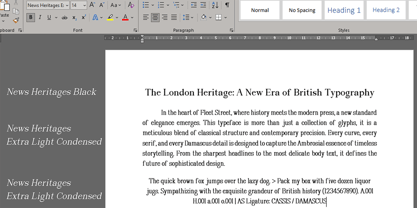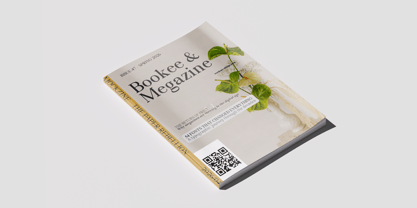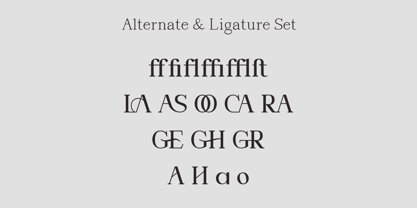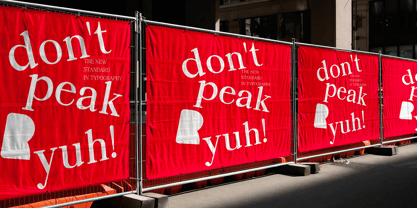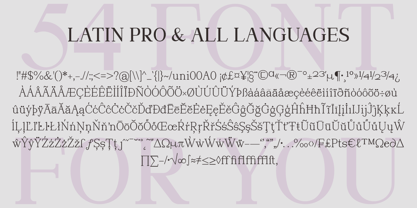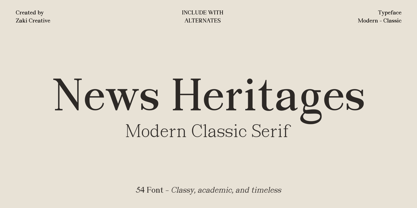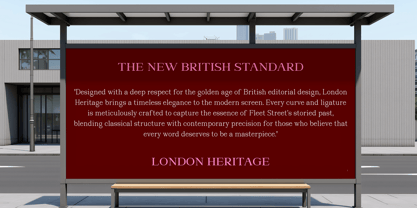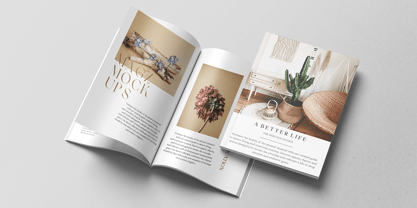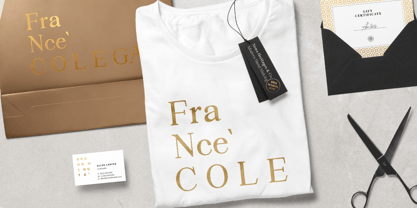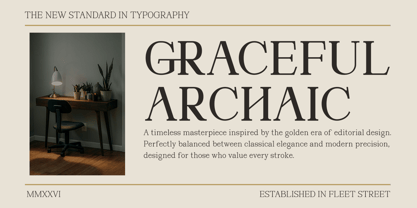
News Heritages
The News Heritages Font Family was designed by Teuku Muhammad Zaki and published by Zaki Creative. News Heritages contains 55 styles and family package options. More about this family
News Heritages — The New Standard of Editorial Elegance Capture the timeless soul of Fleet Street with News Heritages. In a world full of fleeting trends, News Heritages stands as a monument to the golden age of typography. Inspired by the sharp, authoritative, yet graceful lines of classic transitional serifs, this typeface is a meticulous reimagining of the editorial aesthetic that defined a century. Whether you are designing a high-end fashion magazine, a luxury brand identity, or a sophisticated book cover, News Heritages delivers an unparalleled sense of academic prestige and modern precision. It’s not just a font; it’s an inheritance of style. Why News Heritages is a Must-Have Massive Family: Boasting an incredible 54 Styles, from delicate Hairlines to commanding Bold weights, providing you with endless versatility for any project. A Master of Alternates: Elevate your designs with a curated selection of unique alternates and elegant ligatures (including the stunning AS-ligature) that transform standard text into a custom logotype. Variable Font Power: Includes a Variable Font version, giving you granular control over weight and width to fit your layout perfectly without compromise. The "Old Money" Aesthetic: Perfectly balanced for the "Quiet Luxury" trend—clean, sharp, and undeniably expensive. Extensive Language Support: Ready for global reach with support for over 200+ languages (Latin Pro). Perfect for: Editorial Design, Luxury Branding, Logo Marks, High-End Packaging, Wedding Invitations, and Contemporary Digital Media.